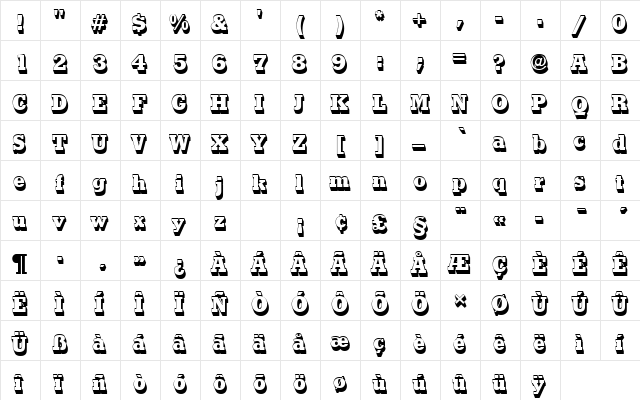
StymieTBlaSh1 Regular Font Preview
StymieTBlaSh1 Regular
StymieTBlaSh1 Regular Font Details
Design Context for StymieTBlaSh1 Typeface
StymieTBlaSh1 takes a measured approach to typography — its balanced proportions and neutral character make it a reliable workhorse for both digital and print work.